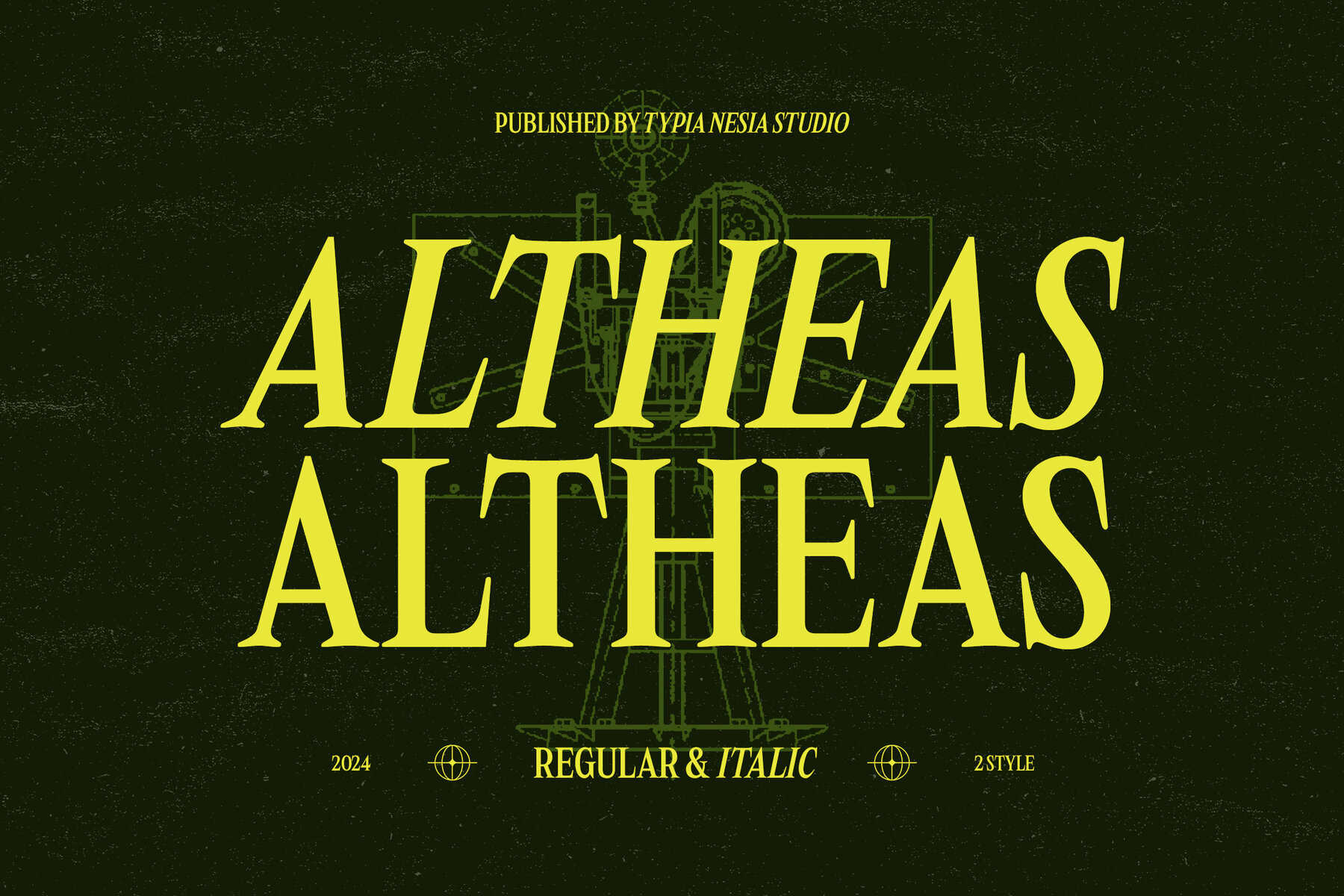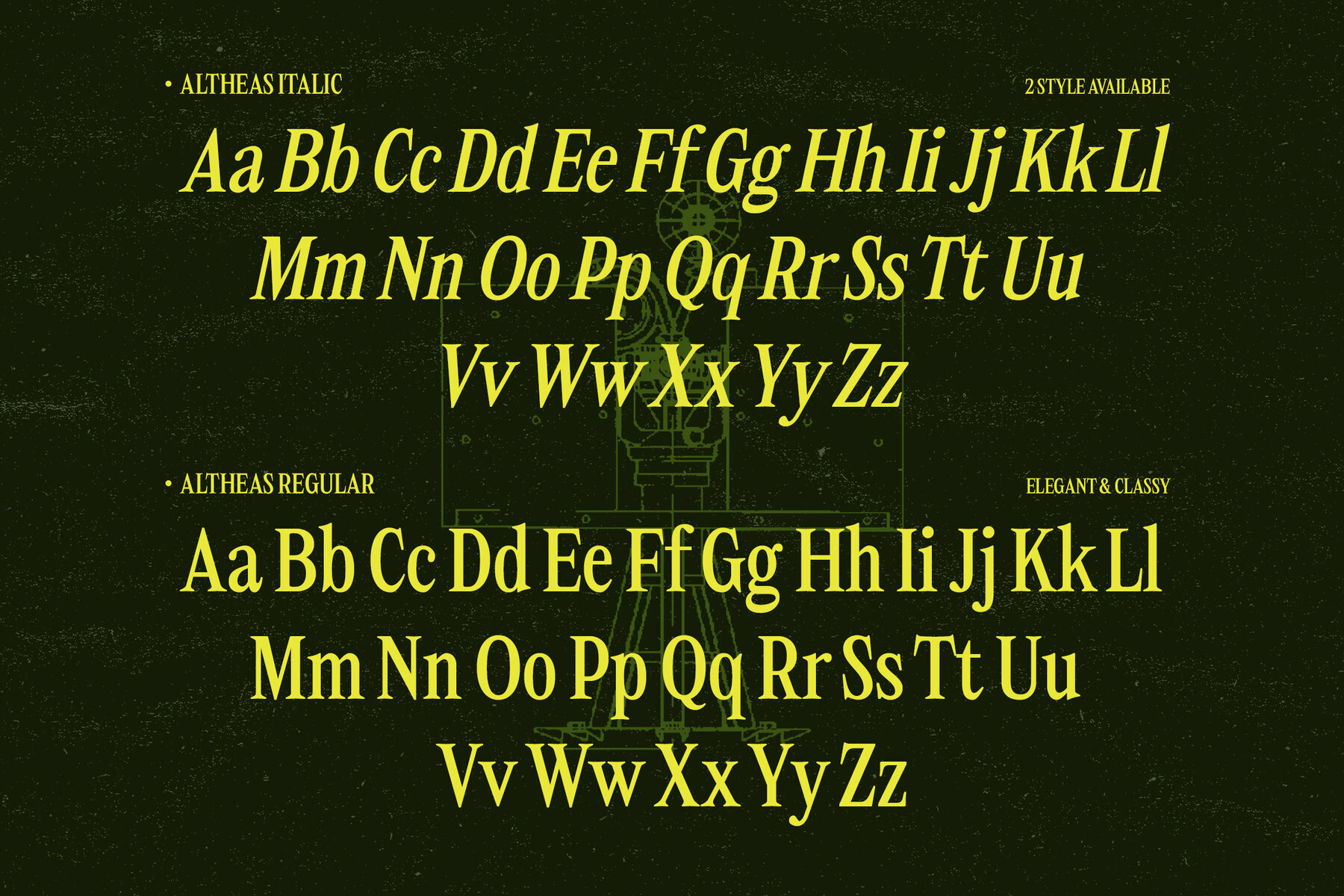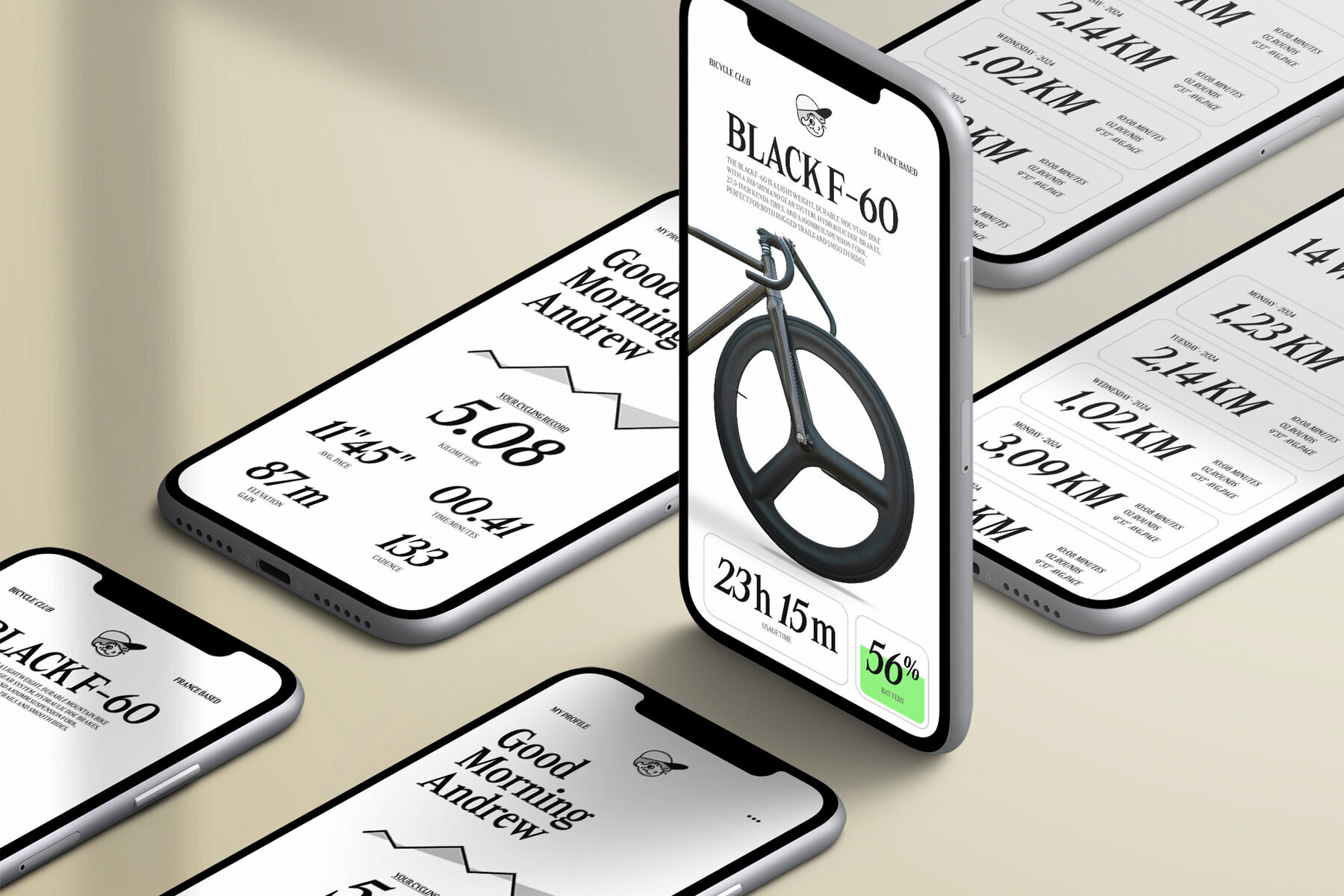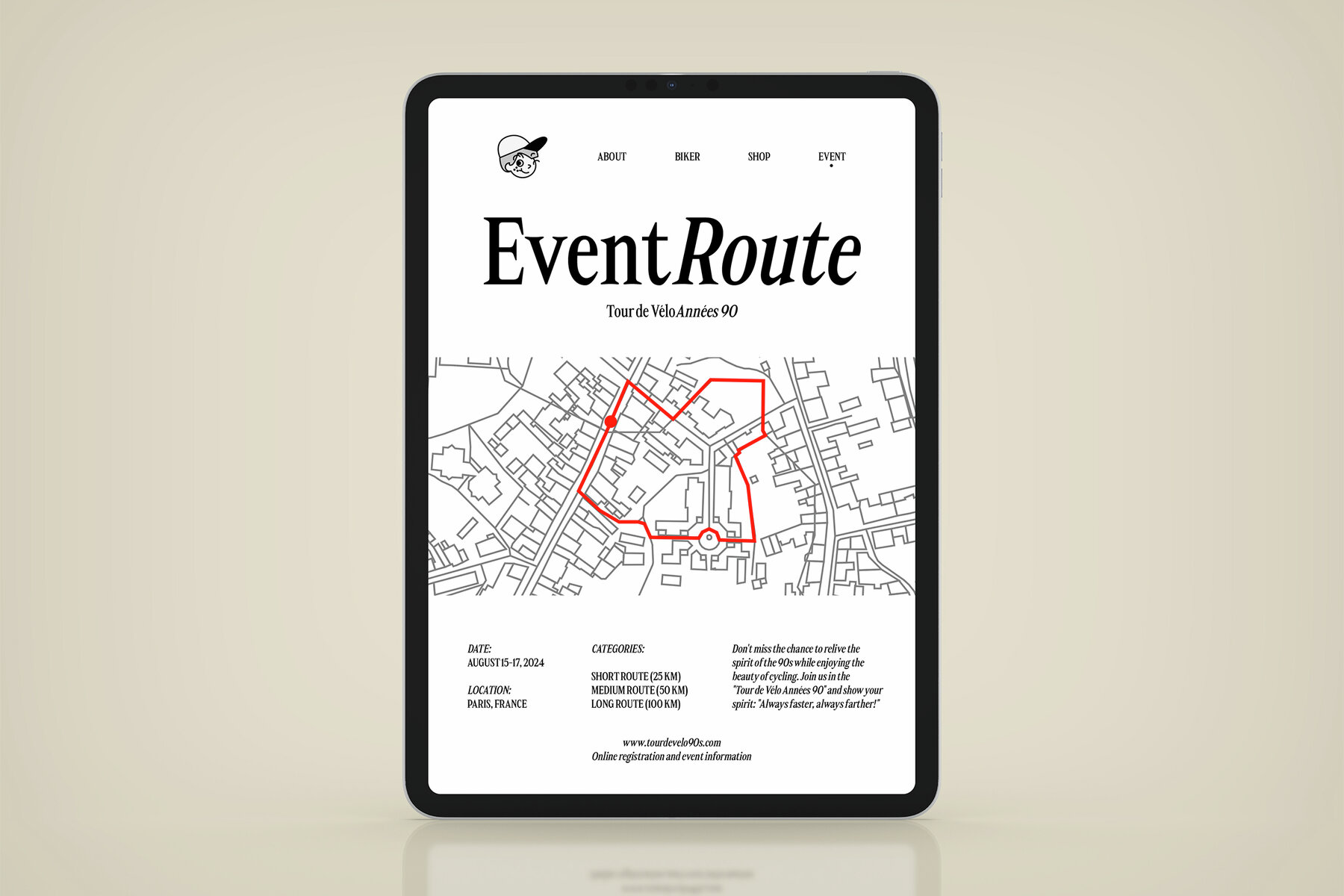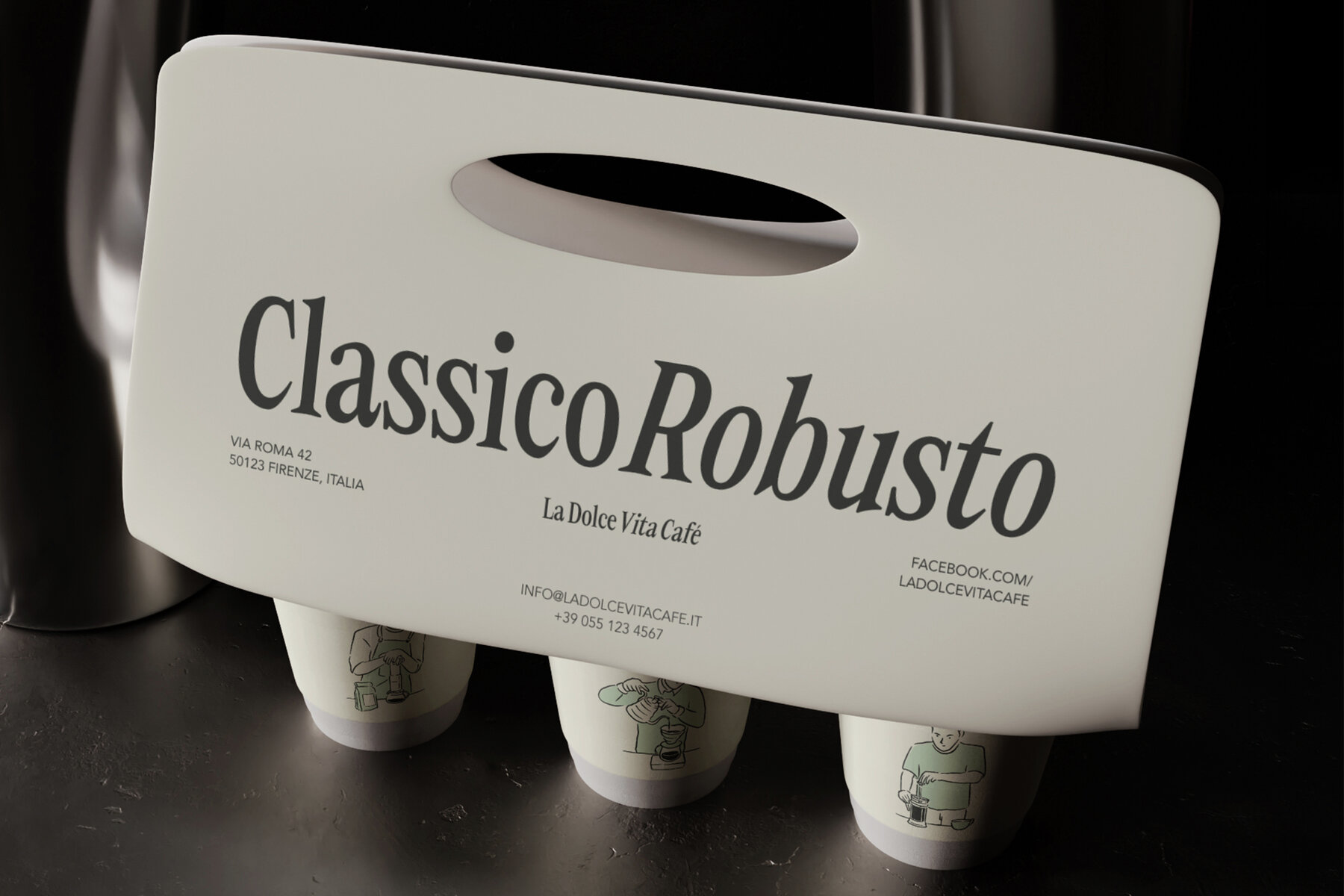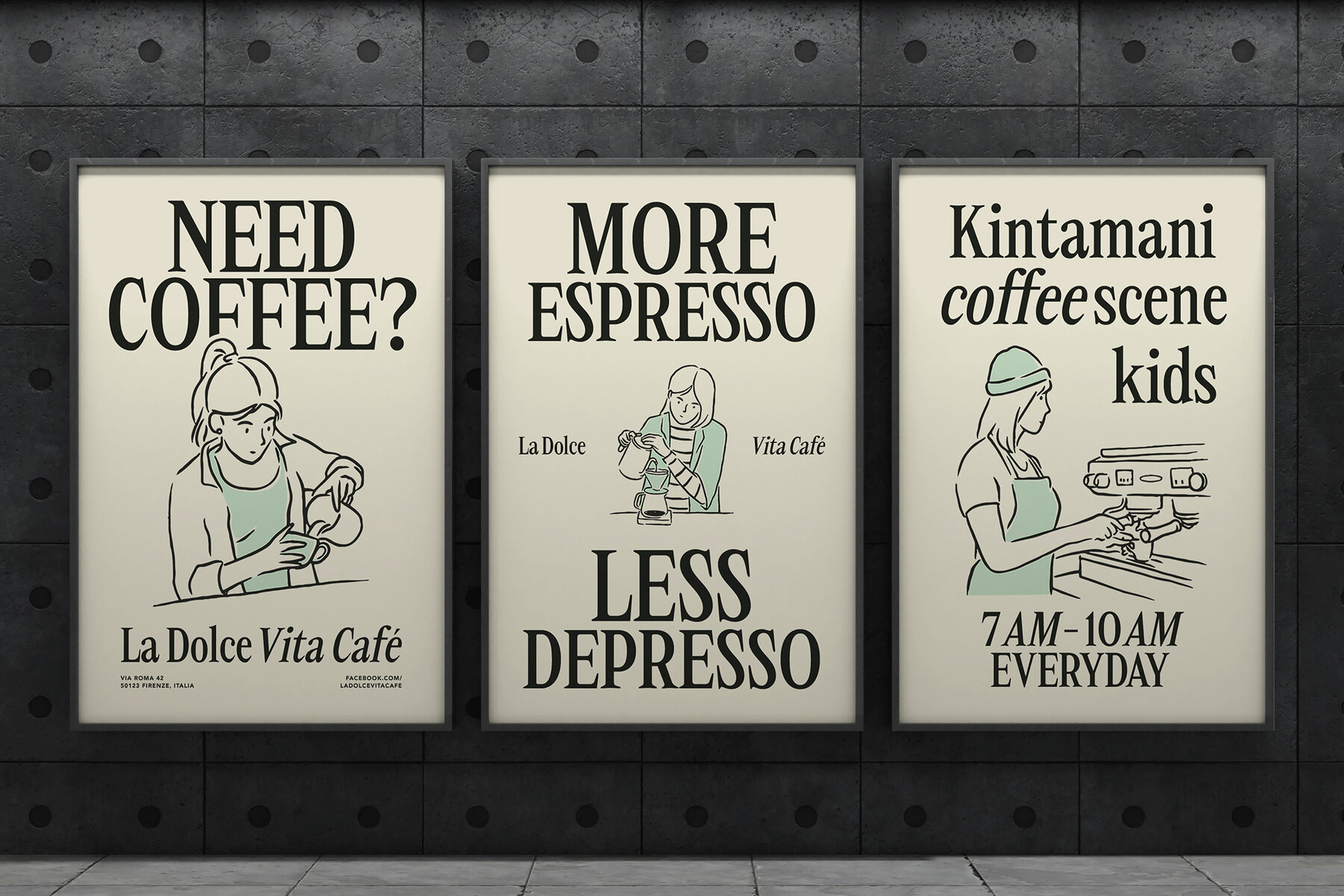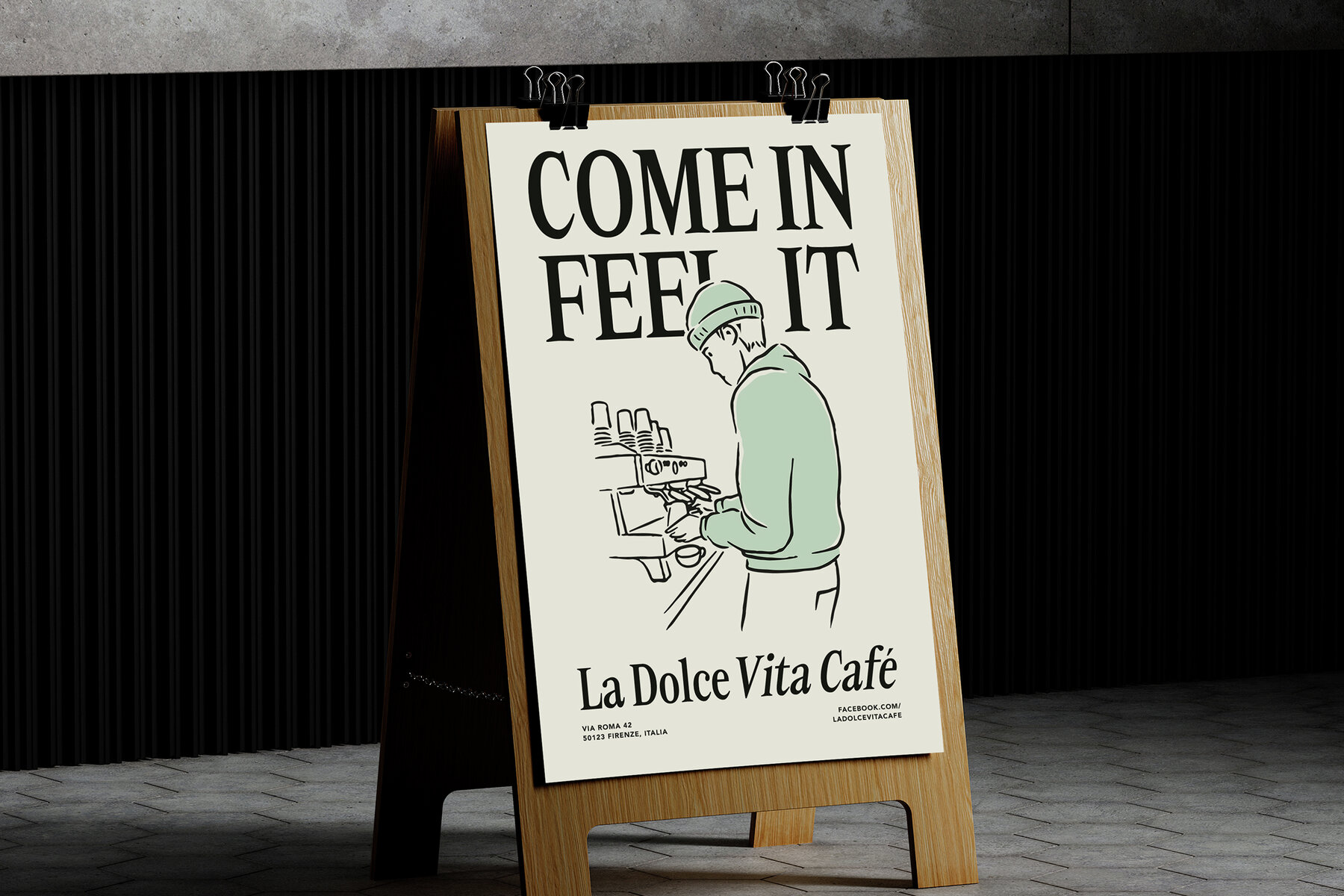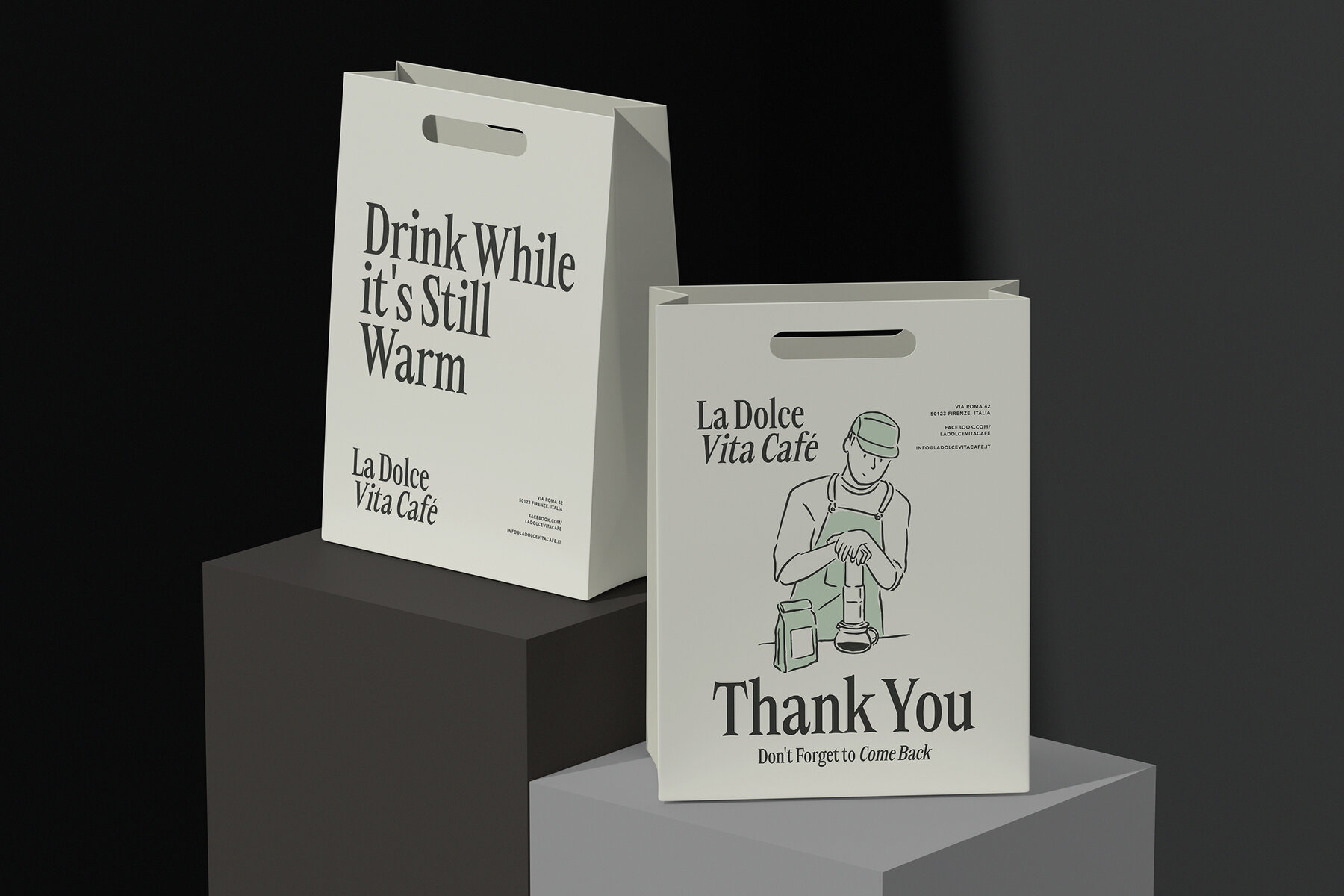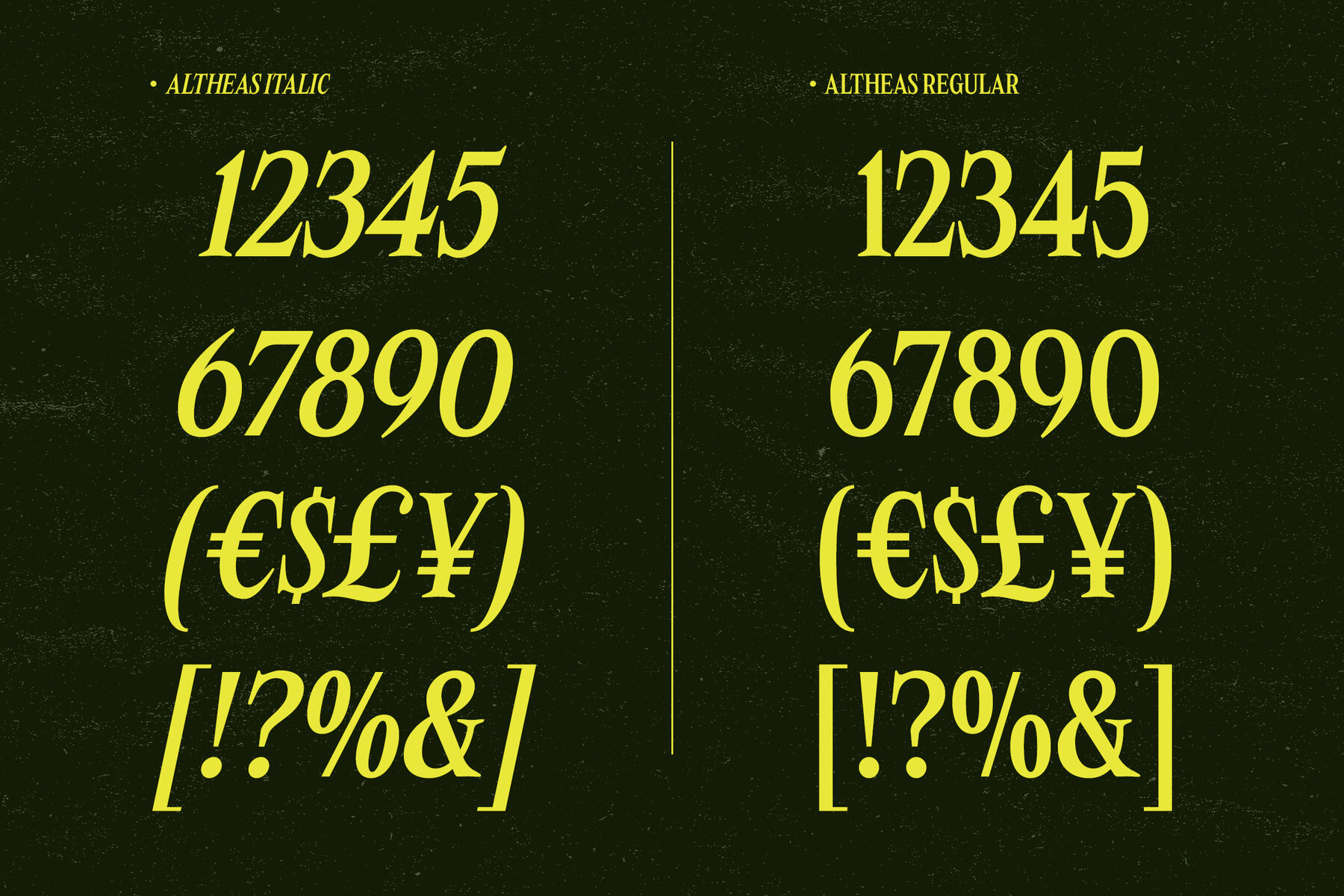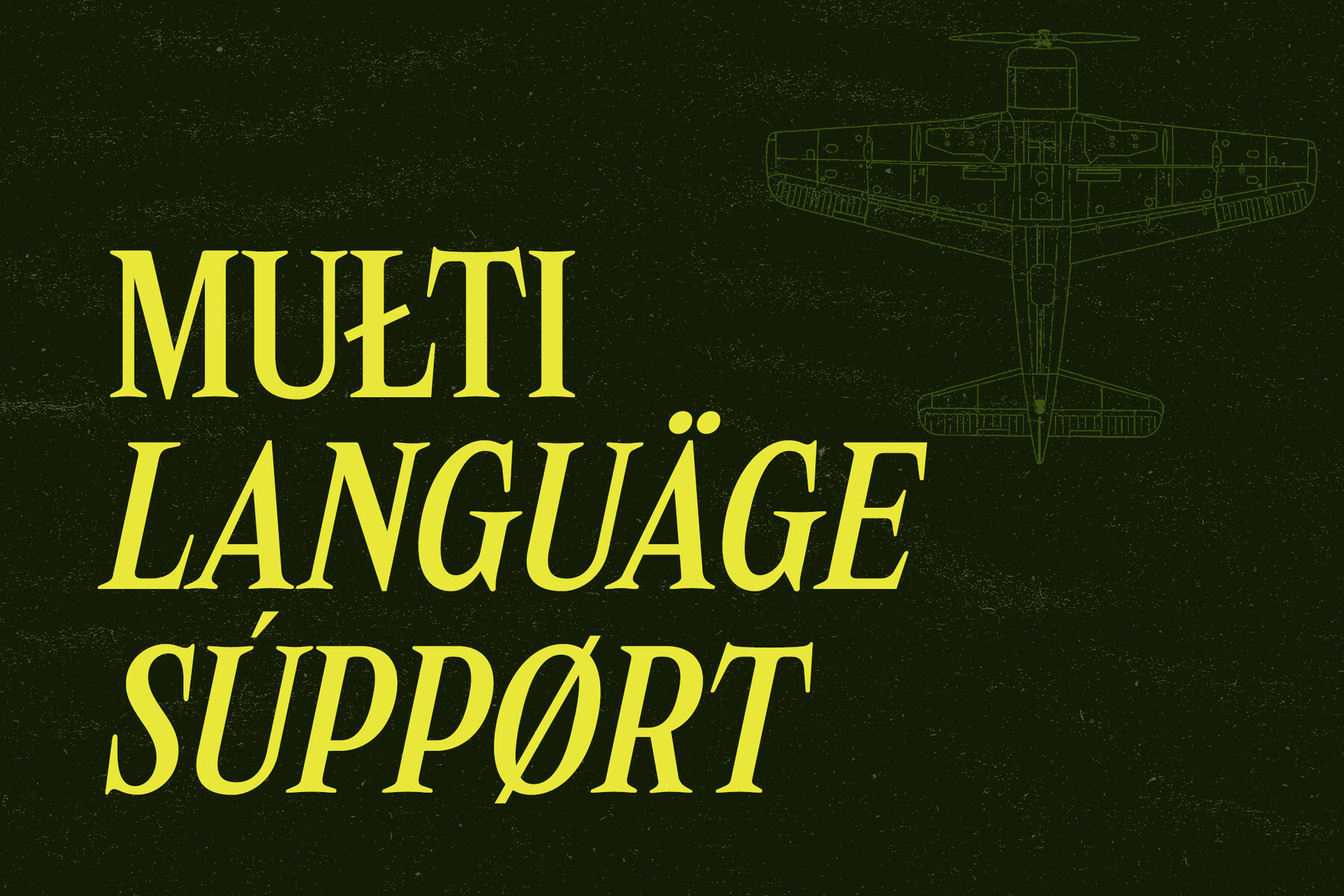
Altheas Font
Altheas is a Regular Italic Serif Font that beautifully blends classic elegance with modern sophistication. Its italicized serif characters add a graceful and fluid touch to any design, making it perfect for projects needing a classic and timeless aesthetic. Ideal for branding, editorial design, book covers, wedding invitations, elegant product packaging, magazine covers, and more, Altheas enhances the visual appeal of any project it graces.
This versatile font includes a comprehensive set of uppercase and lowercase letters, punctuation, numerals, and alternate characters to support diverse creative needs. Designed with meticulous attention to detail, it also offers extensive multilingual support, making it suitable for global applications. Altheas combines the timeless charm of serif fonts with the elegant flow of italic styling, providing a polished and sophisticated look for both print and digital formats.